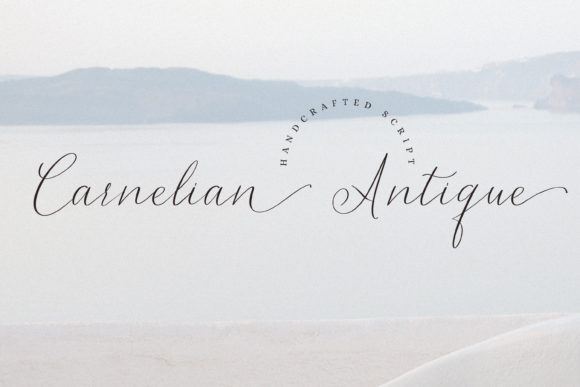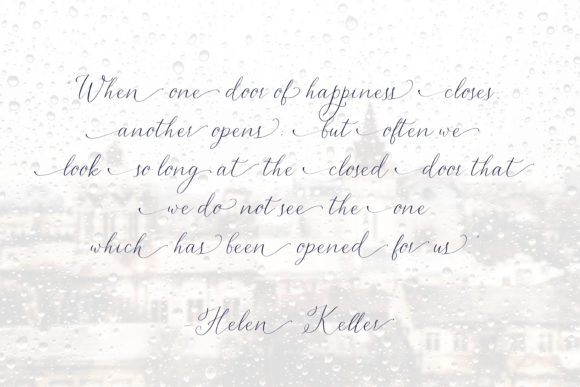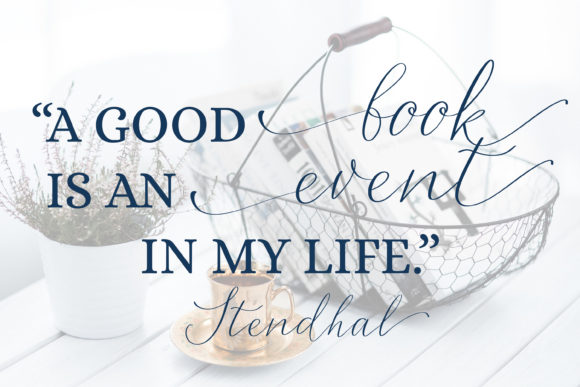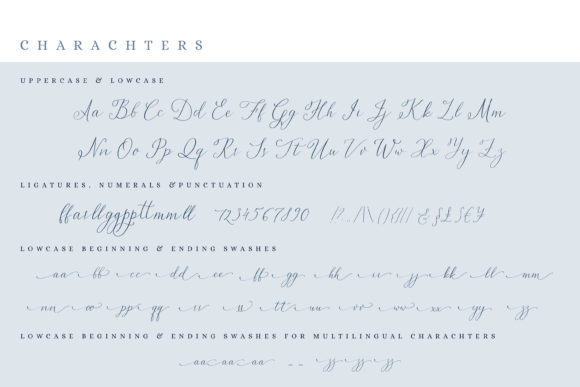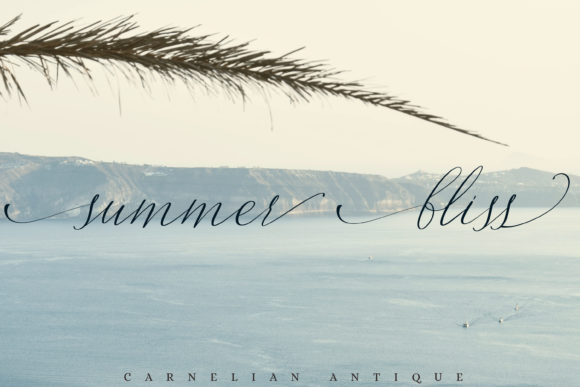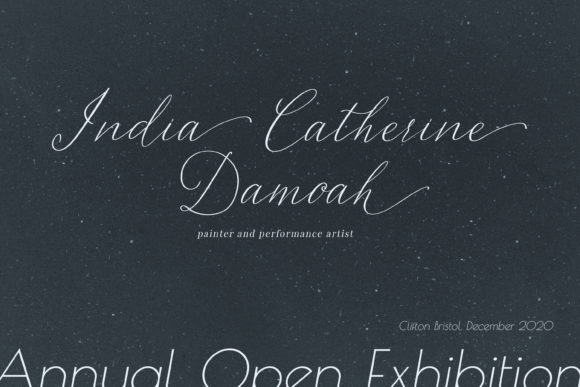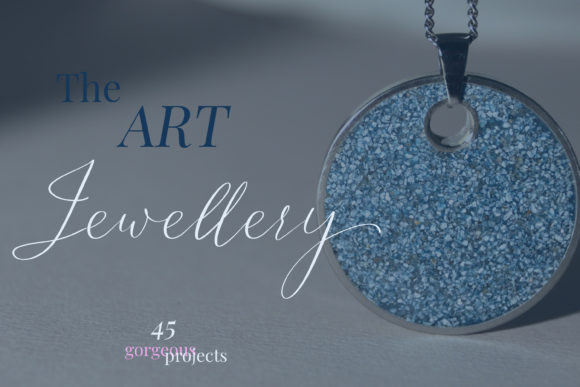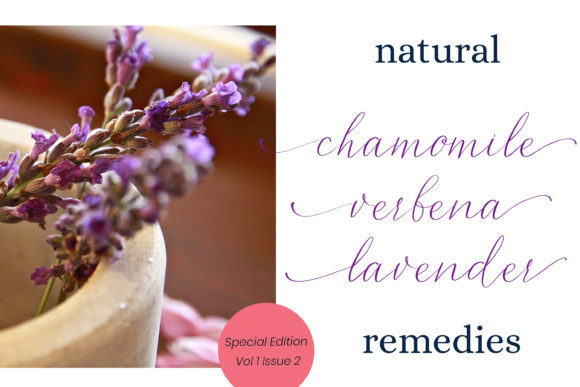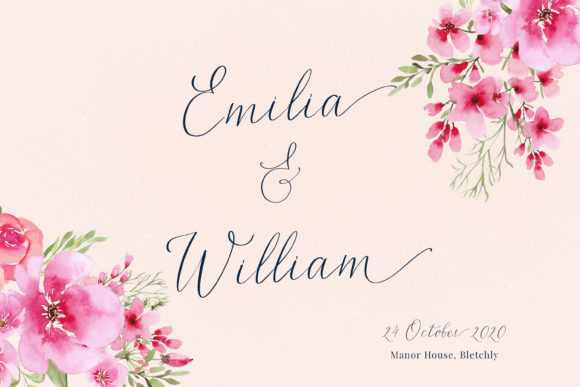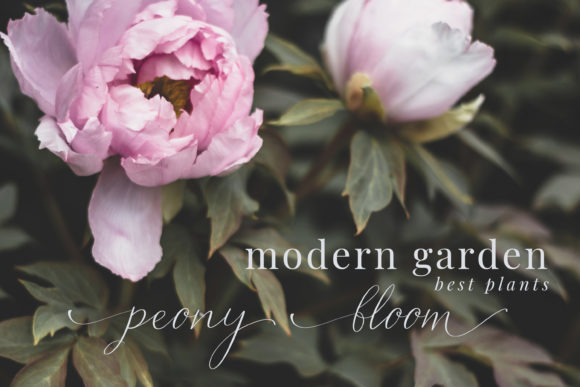
Carnelian Antique Font
About Carnelian Antique Font
Carnelian Antique is an effortlessly elegant script with a unique style. Use it to turn any design project into a true standout!